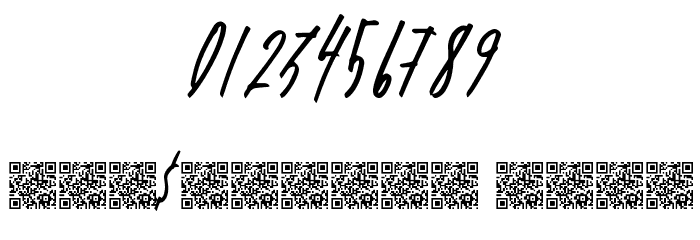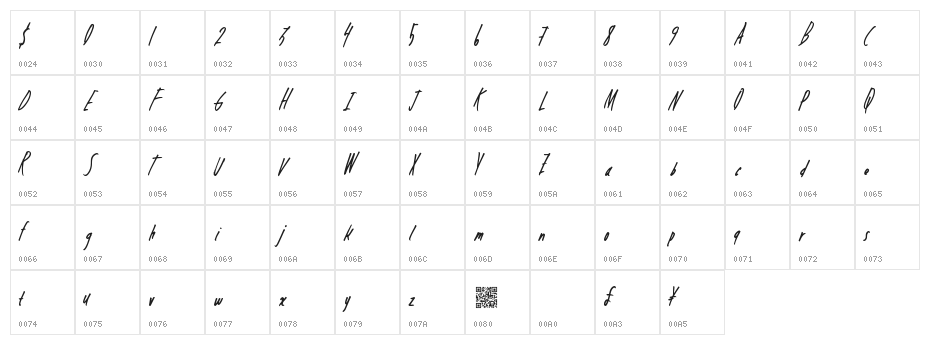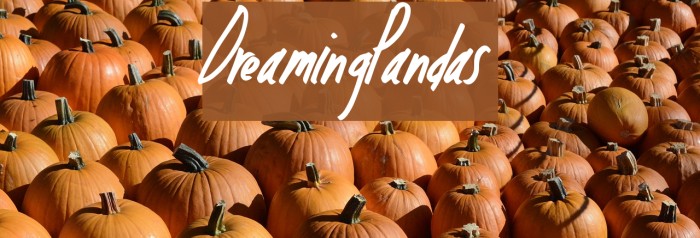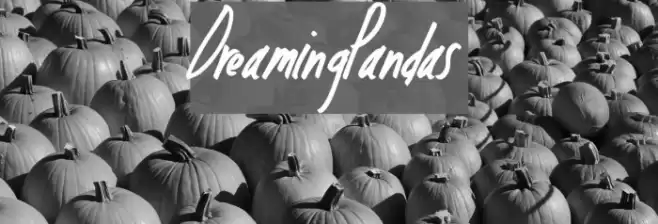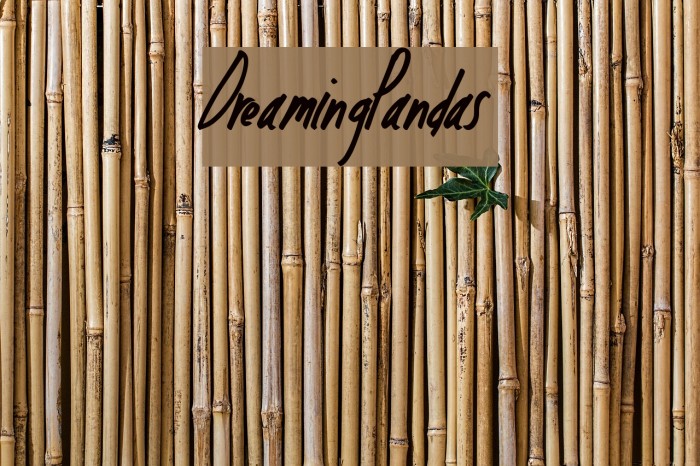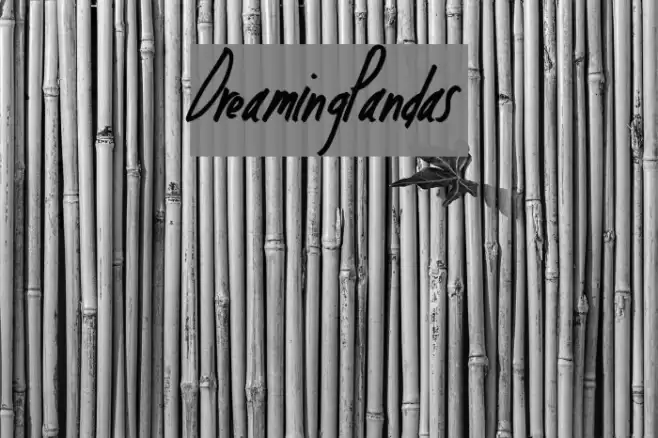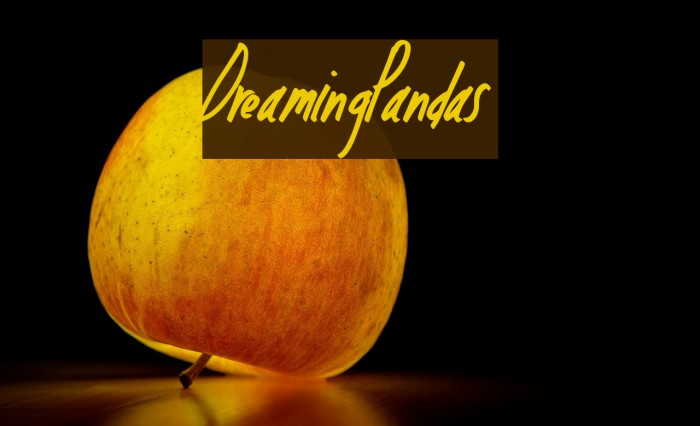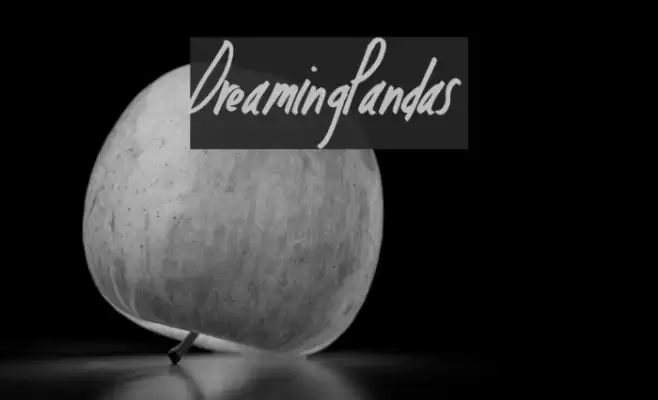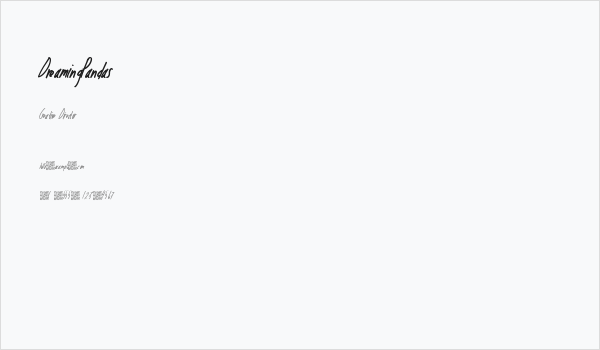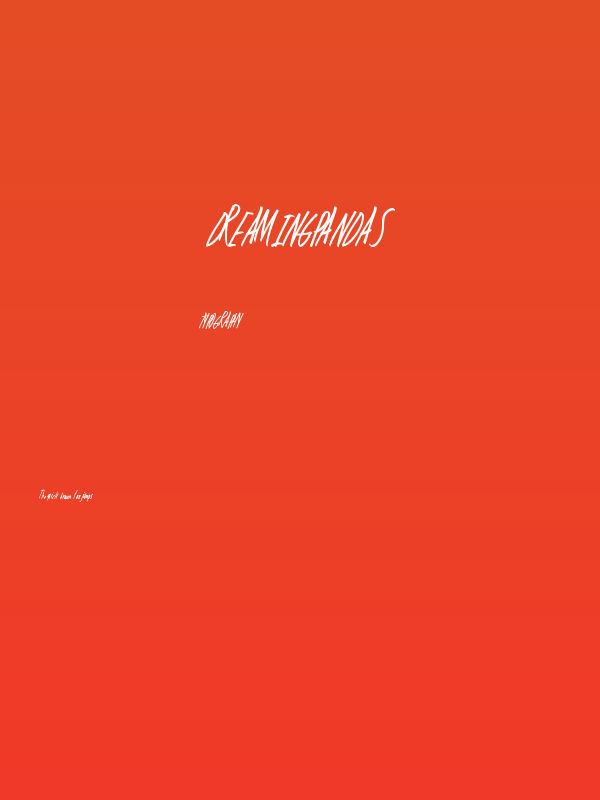
DreamingPandas Font
DreamingPandas Description
This font features a dynamic and energetic handwritten style, characterized by its fluid and slightly irregular strokes. The letters exhibit a playful yet sophisticated appearance, with a natural flow that mimics authentic handwriting. The uppercase letters are bold and prominent, while the lowercase letters maintain a consistent rhythm, creating a harmonious balance. The numbers follow the same handwritten aesthetic, ensuring uniformity across all characters. Special characters are seamlessly integrated, maintaining the overall style. This font is perfect for projects that require a personal touch, such as invitations, greeting cards, or branding materials that aim to convey creativity and individuality.